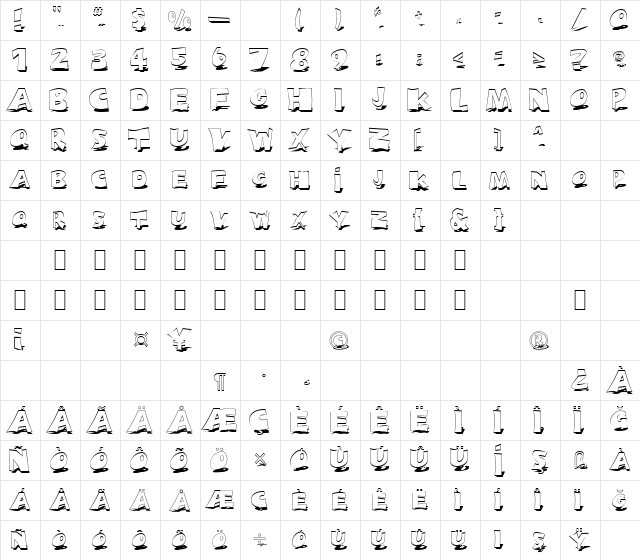
Snopy Shadow Normal
Design Context for Snopy Shadow Typeface
Snopy Shadow brings ornamental detail and strong personality to headlines and identities, where visual impact matters more than quiet functionality.
Font Pairing: Pair with a clean neutral sans-serif for body copy to let Snopy Shadow's character lead without overwhelming the composition.
Pro Tip: Use Snopy Shadow exclusively at display sizes — it was designed to be seen, not read at length. Let a neutral companion handle body copy.